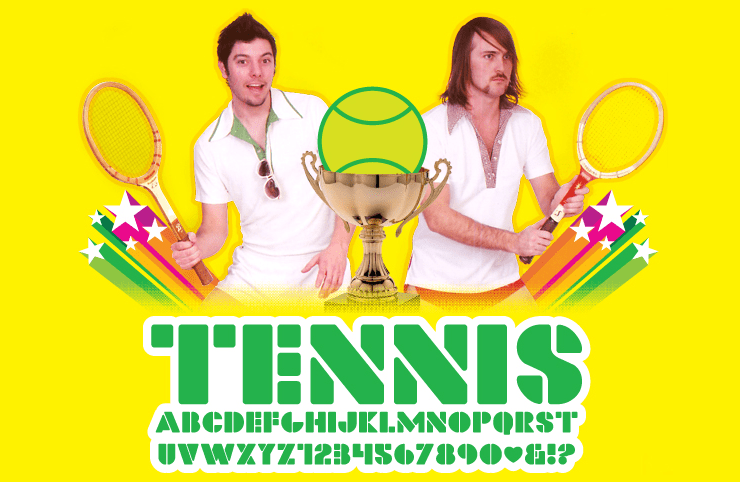
Before you get all hot and bothered, hear me out: I named this font Tennis because I had this t-shirt when I was a little kid in the 70's and it said "tennis" all over it in a font that was just like this. Well, I really liked that shirt. I hope you will feel the same about this newly inspired stencil font. And hopefully for your sake, there won't be a "pudding incident" that will separate you from this one.